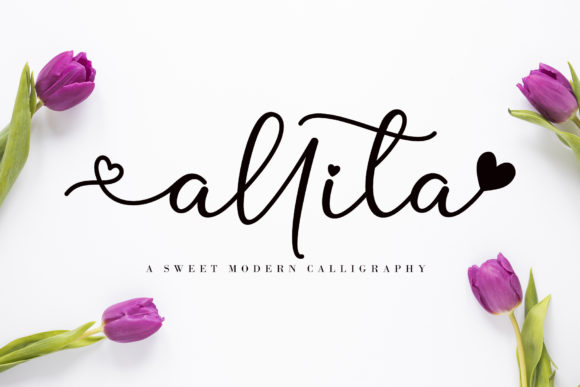
Step into a world of enchanting artistry with Allita Font, a captivating script typeface that will transform your creative visions into breathtaking realities. Each character in this elegant dance along the baseline, painting a picture of romance and sweetness.
Whether you're a skilled designer or a passionate crafter, Allita Font is your gateway to captivating creations. Its versatility knows no bounds, empowering you to craft exquisite wedding invitations, enchanting album covers, and heartfelt love letters that will leave a lasting impression.
Allita Font's PUA encoding opens up a treasure trove of possibilities, granting you effortless access to a universe of glyphs and swashes. Unleash your imagination and let your designs blossom with ethereal beauty.
Experience the magic of Allita Font today and elevate your creations to new heights of artistry. Embark on a journey where your words take flight, carried aloft by the whispers of love and enchantment.